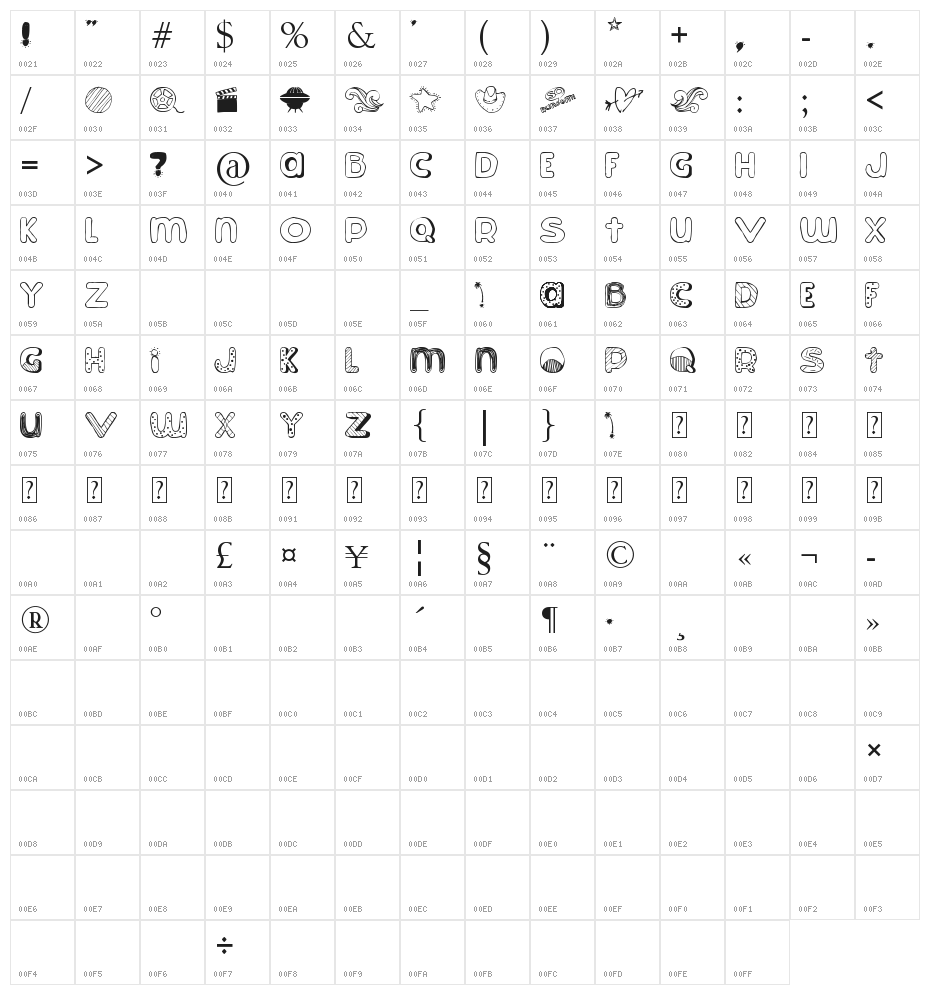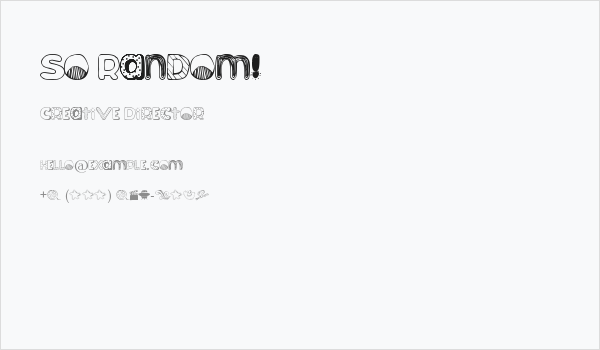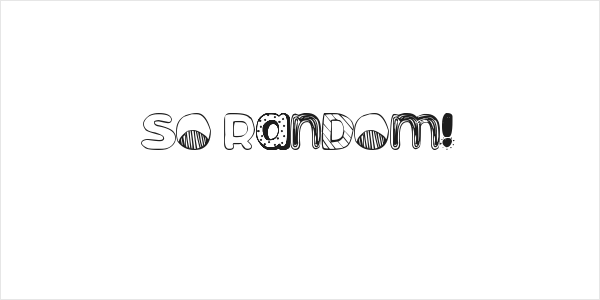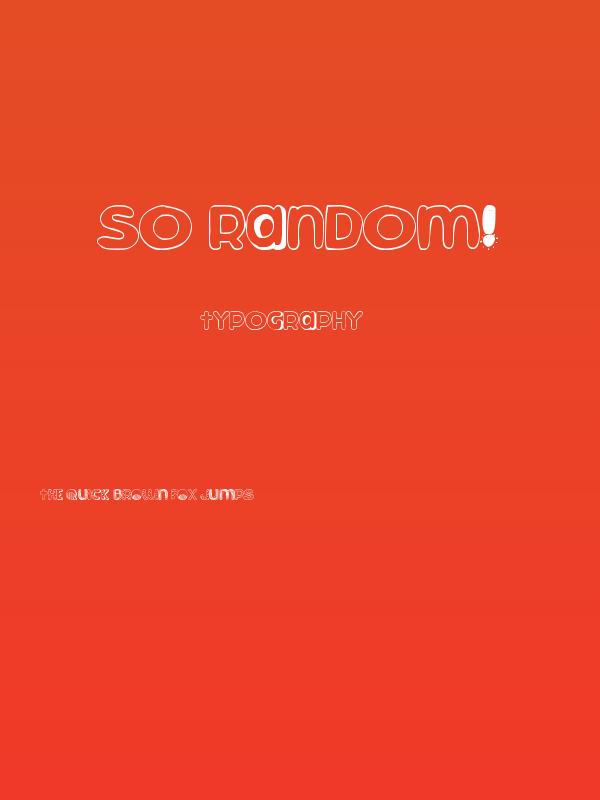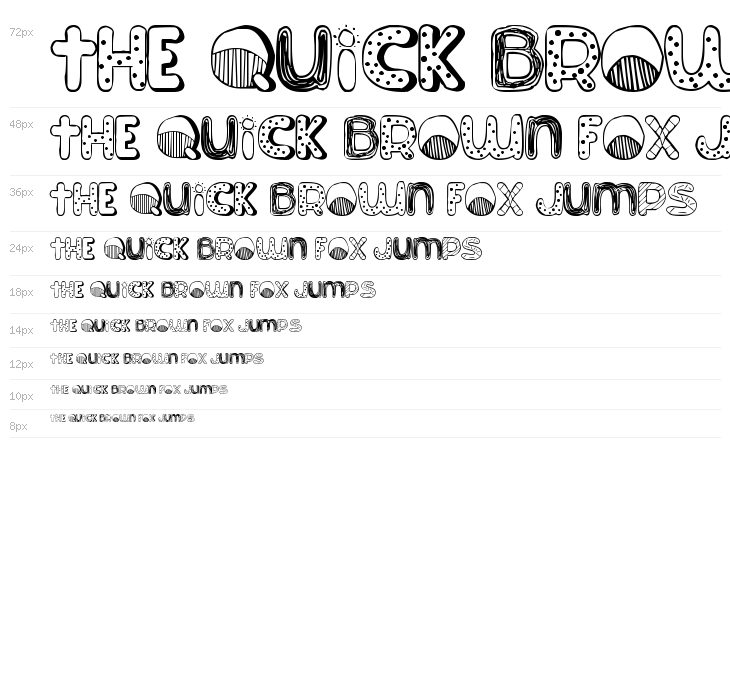
So Random! Font
So Random! Description
This playful and eclectic font features a variety of decorative elements within each character, creating a whimsical and dynamic appearance. Each letter is uniquely styled with patterns such as stripes, dots, and abstract shapes, adding a sense of fun and creativity. The font is bold and eye-catching, making it ideal for projects that require a lively and engaging visual impact. The characters are outlined, with some filled and others left open, enhancing the overall playful theme. This font is perfect for designs that aim to capture attention and convey a sense of joy and spontaneity.